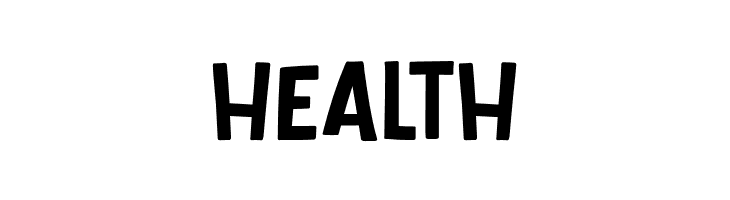
( Fonts by Kong Font )
A bold, geometric font with sharp angles and a strong, modern presence.
( Fonts by Scratch Design )
A playful, bold font with rounded, bubbly letterforms.
( Fonts by Lettersweet Studio )
A playful, bold font with rounded, bubbly characters and decorative elements.
( Fonts by Kong Font )
A bold, playful font with irregular shapes and dynamic style.
( Fonts by DumadiStyle )
A bold, modern font with tall, narrow characters and a clean, sans-serif style.
( Fonts by MJType )
A playful, rounded font with a friendly and approachable style.
( Fonts by LyonsType )
A bold, rounded, and modern font with smooth curves and consistent stroke thickness.
( Fonts by LyonsType )
A modern, geometric font with uniform stroke widths and a monospaced appearance.
( Fonts by LyonsType )
A bold, geometric font with a modern, digital aesthetic.
( Fonts by LyonsType )
A bold, geometric font with a modern, monospaced style.